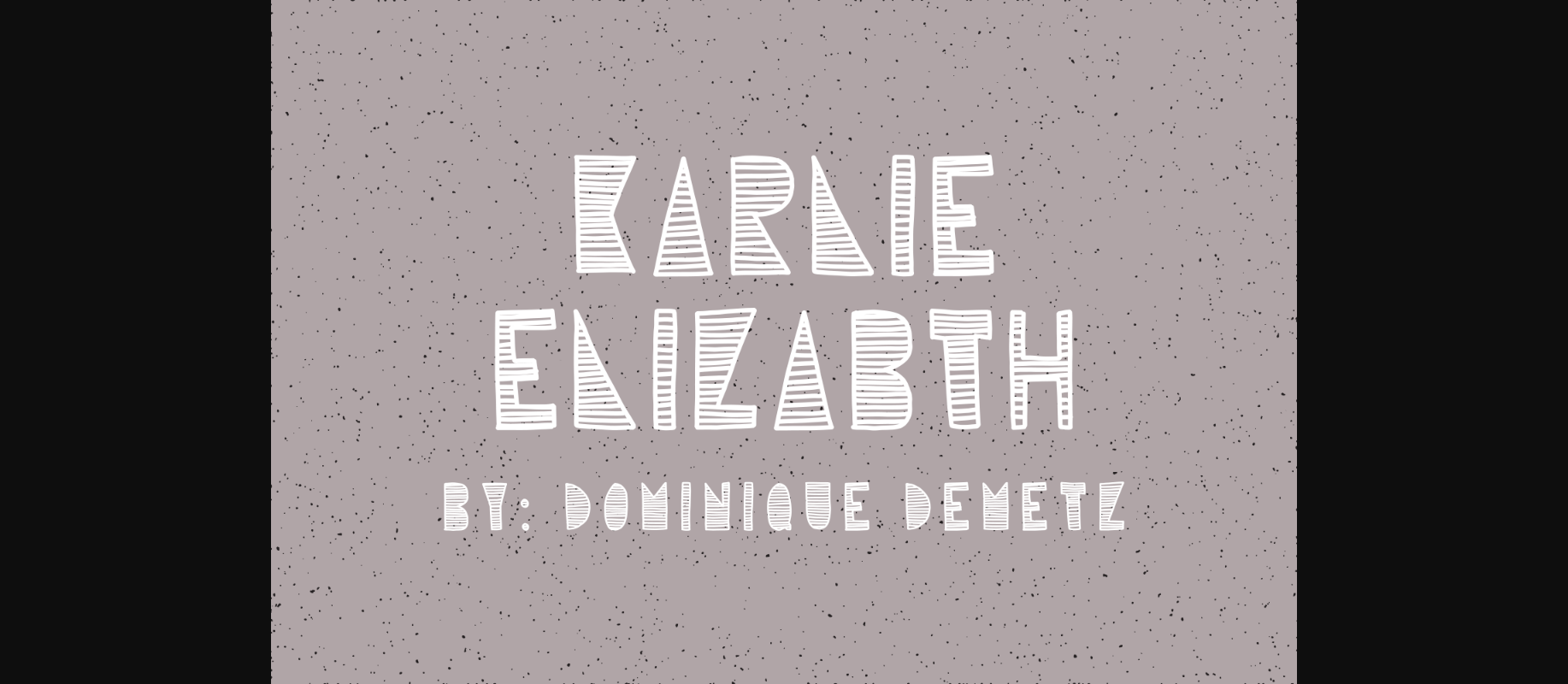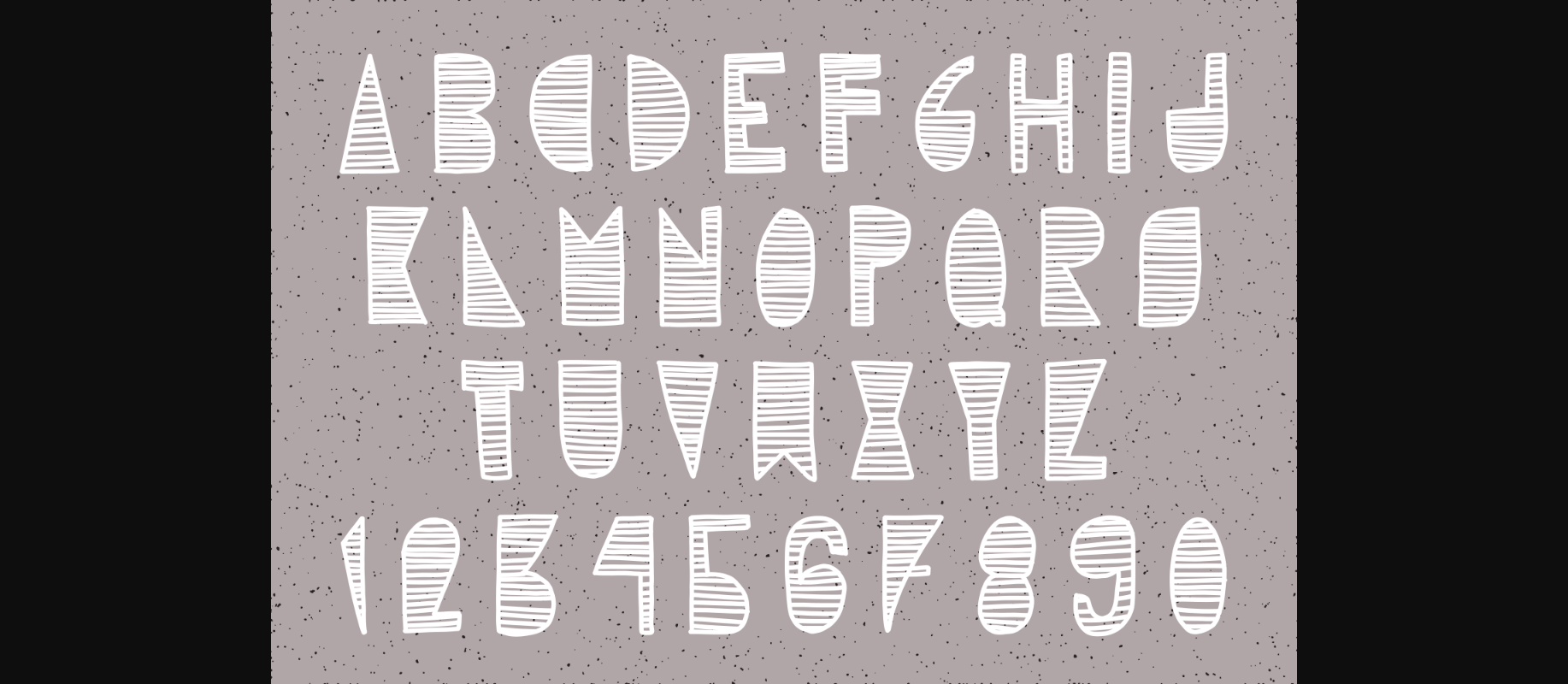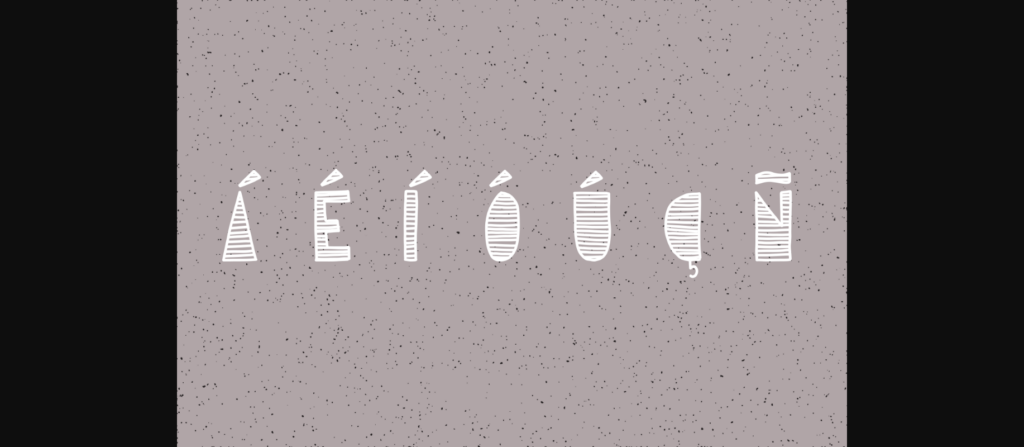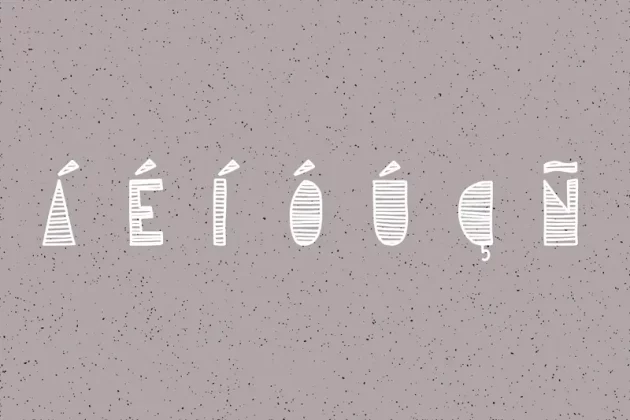
About Karlie Elizabeth Font
Karlie Elizabeth is a completely decorative and fun font, perfectly suitable for eye catching typographic styles. Use Karlie Elizabeth when you want to add a youthful edge to your designs or creative projects.